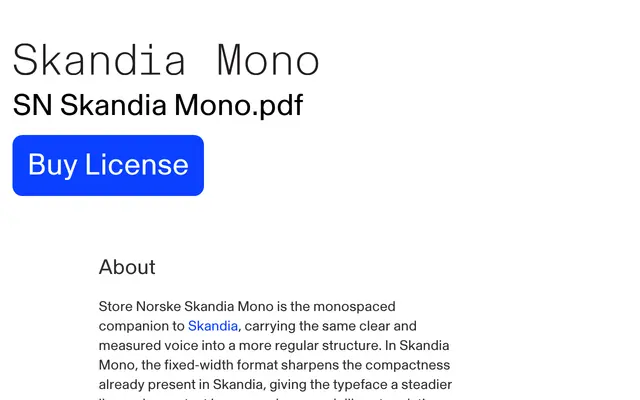
Store Norske Skandia Mono
A monospaced companion to the Skandia neo-grotesque family, designed by Arve Båtevik and rooted in a long-lost Norwegian railway typeface.
Derived from Skandia, which originates from a Scandinavian neo-grotesque designed for the Norwegian National Railway, this monospaced variant preserves the parent family's balanced contrast and geometric construction while placing those forms into a fixed-width structure. The regular interval of monospaced setting brings alignment and repetition into sharper focus, producing a denser text image with a more deliberate rhythm between letter and space. Language support extends across Western, Central and Northern European scripts including Nordic and Sami languages, with a full complement of OpenType features.
A fixed-width companion to a neo-grotesque sans, retaining balanced contrast and geometric construction from the parent family within a monospaced structure.